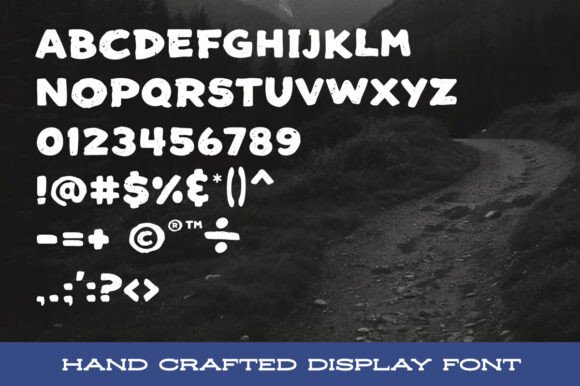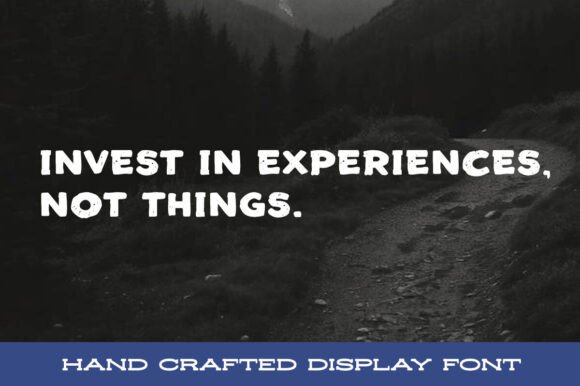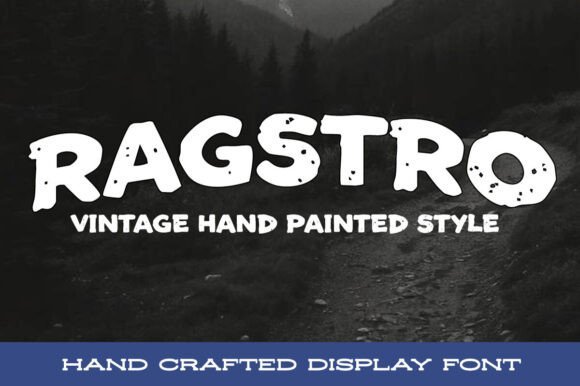
Introduction to Ragstro Font
Ragstro is a bold, hand-brushed sign font with a rough and distressed appearance.
Each character has an organic, textured feel with irregular edges, giving it a raw and authentic hand-painted look Small gaps, scratches, and rough patches are visible throughout, enhancing the worn, weathered style.
Key Features of Ragstro Font